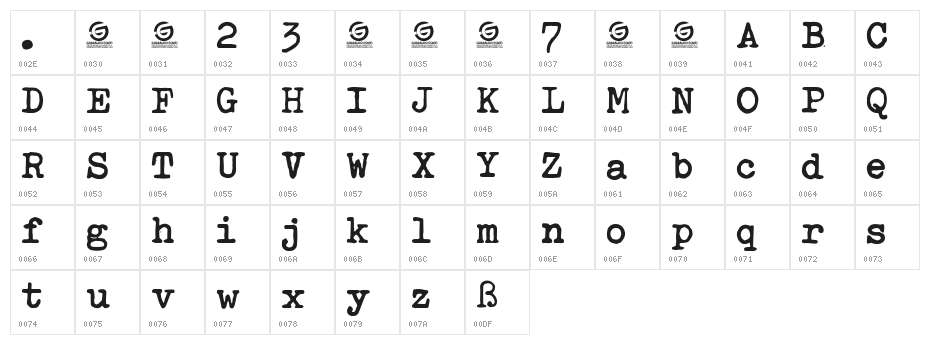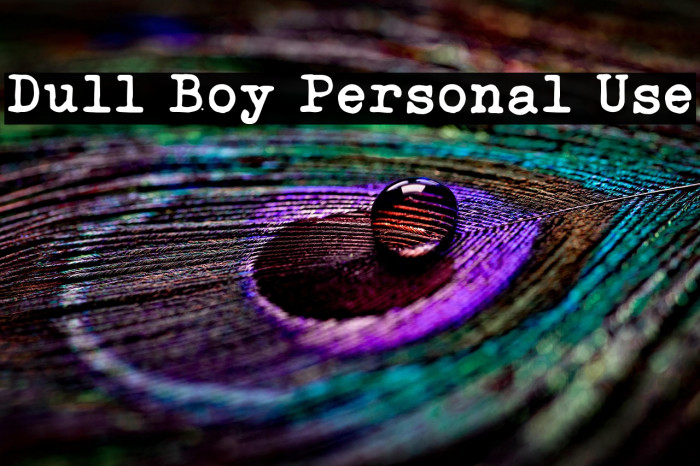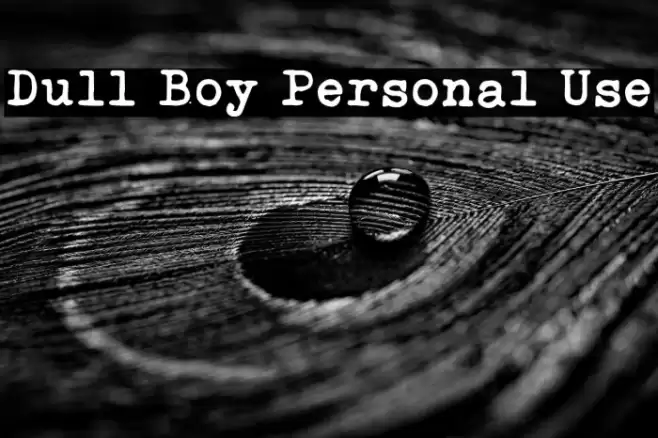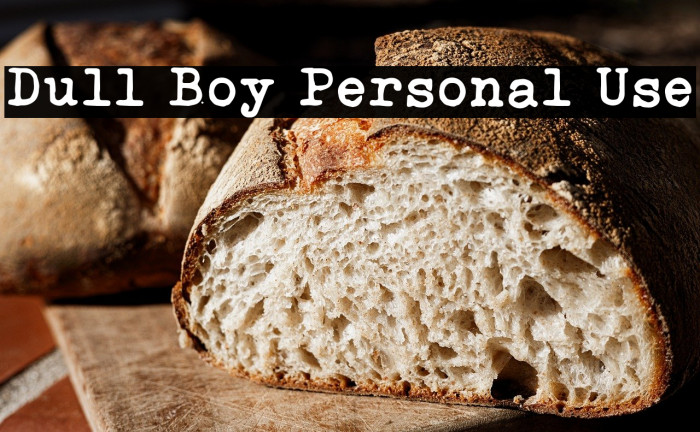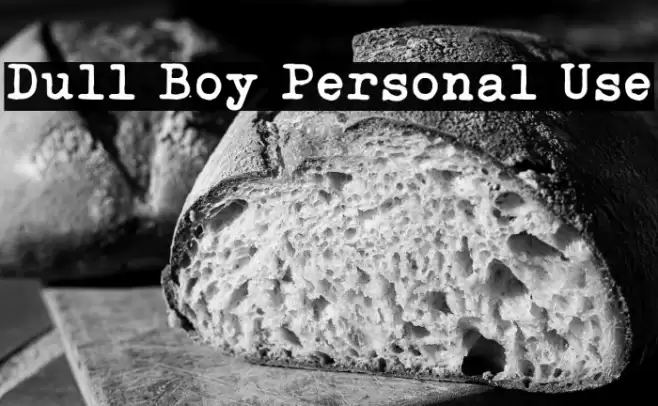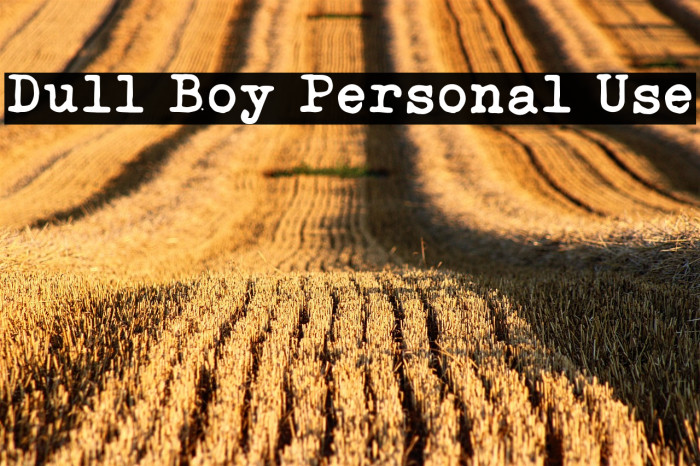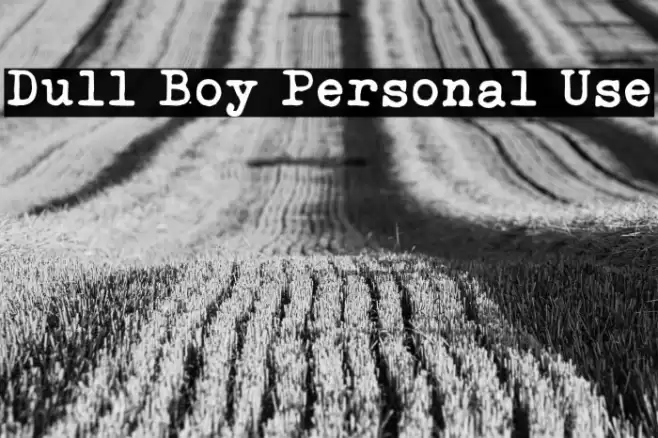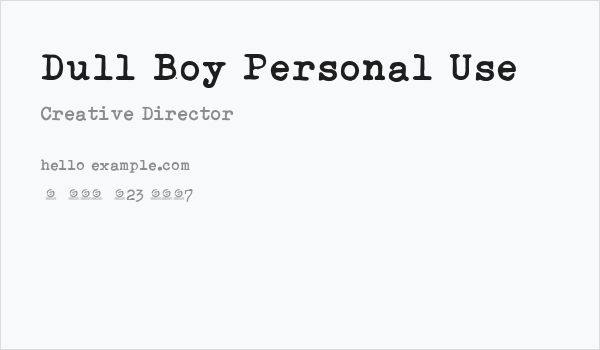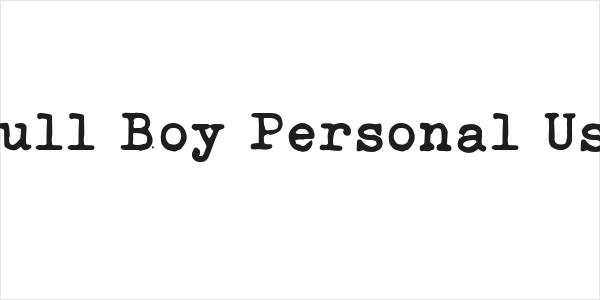
Dull Boy Personal Use Font
Dull Boy Personal Use Description
This font features a distinctive, vintage typewriter style with a slightly distressed appearance. The characters are bold and have a uniform weight, giving them a strong presence on the page. The uppercase and lowercase letters maintain a consistent style, with rounded edges and a slightly uneven baseline that adds to the retro aesthetic. The numbers and special characters follow the same design principles, ensuring a cohesive look across all text elements. The font's unique character is perfect for projects that require a touch of nostalgia or a handcrafted feel.
| Proposed Projects | Ideal for retro-themed designs, vintage posters, typewriter-inspired projects, and branding that requires a nostalgic touch. |